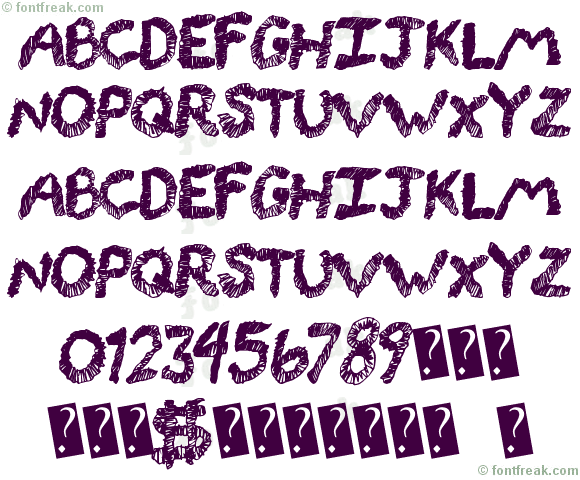
RockingLines
About RockingLines
RockingLines by XEROGRAPHER FONTS is a unique handwritten font that captures a playful and artistic essence, making it perfect for a variety of creative projects. This font features a distinctive, informal style characterized by irregular stroke weights and a lively line quality, giving it a handcrafted feel that resonates with authenticity. The letters exhibit a whimsical flair, with varying thicknesses and fluid curves, which add to its charm. The spacing between characters is thoughtfully designed to maintain readability while enhancing the overall dynamic appearance.
Ideal for projects that require a personal touch, RockingLines excels in contexts such as wedding invitations, where its informal elegance can create a warm atmosphere. Additionally, it works beautifully for children’s book covers, infusing a sense of fun and creativity that appeals to young readers. Restaurant menus can also benefit from this font, adding a unique character that reflects a casual dining experience. Graphic designers looking to create eye-catching posters, especially for music events or art shows, will find RockingLines to be a compelling choice. Small business owners seeking a distinctive brand identity can leverage this font in their marketing materials to convey creativity and approachability.
Targeted at graphic designers, small business owners, and content creators alike, RockingLines offers a versatile solution for those in need of an expressive typeface. Its freeware license allows for easy access, enabling users to incorporate this font into their projects without any cost barriers. What sets RockingLines apart is its ability to blend a sense of playfulness with artistic expression, making it a standout choice for anyone looking to add character to their designs. For those interested in exploring its charm, the RockingLines font free download is an excellent opportunity to enhance your creative toolkit.